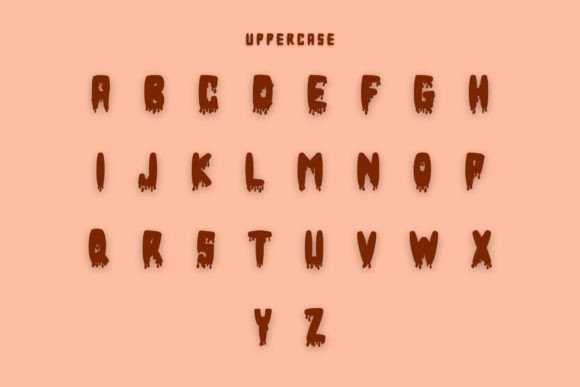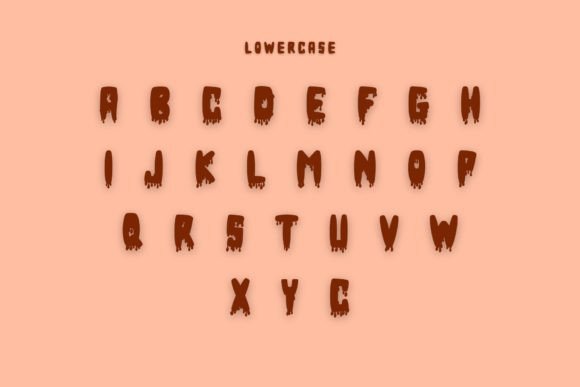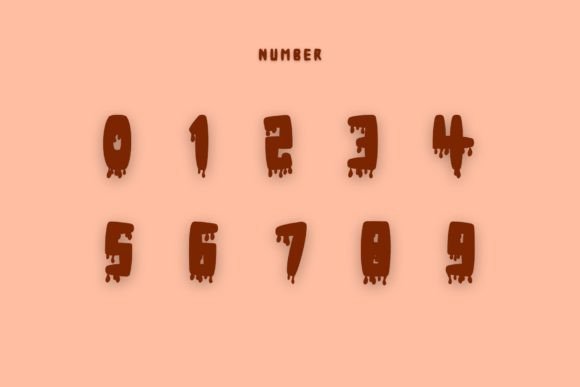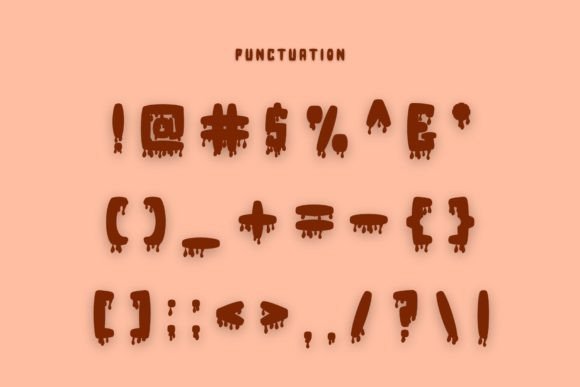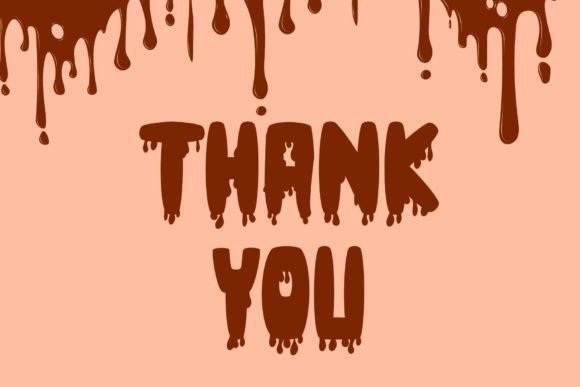
Dripper Font: The Ultimate Choice for Spooky and Fun Designs
Are you looking for a font that can add a touch of playfulness and authenticity to your designs? Look no further than the Dripper Font! This scary and fun decorative font is perfect for all your favorite Halloween projects, and its versatility makes it suitable for a wide range of applications, from blog posts and logos to invitations and decorations.
What Makes Dripper Font So Special?
Dripper Font is a unique and eye-catching font that embodies the spirit of Halloween. Its drippy, irregular design gives it a spooky and fun feel that’s sure to grab attention. Whether you’re creating a Halloween-themed blog post, a logo for a haunted house, or an invitation to a costume party, Dripper Font is the perfect choice.
One of the best things about Dripper Font is its versatility. It’s not just limited to Halloween designs; it can be used for a wide range of projects, including:
- Blog posts: Add a touch of personality to your blog posts with Dripper Font. It’s perfect for headings, titles, and even body text.
- Logos and branding: Create a memorable logo for your business or brand with Dripper Font. Its unique design will help you stand out from the crowd.
- Ads: Make your ads more eye-catching with Dripper Font. It’s perfect for creating attention-grabbing headlines and titles.
- Invitations: Create spooky and fun invitations for Halloween parties, costume contests, or other events.
- Greeting cards: Add a personal touch to your greeting cards with Dripper Font. It’s perfect for creating unique and memorable cards.
- Planners and photo albums: Use Dripper Font to add a touch of personality to your planners and photo albums.
- Decorations: Create spooky and fun decorations for your home or office with Dripper Font.
Why Designers and Crafters Love Dripper Font
Dripper Font has become a favorite among designers and crafters due to its unique and versatile design. Here are just a few reasons why:
- Customizable: You can customize Dripper Font to fit your design needs. Experiment with different colors, sizes, and styles to create a unique look.
- High-quality design: Dripper Font is designed with high-quality graphics, ensuring that it looks great in any design.
- Perfect for DIY projects: Dripper Font is perfect for DIY projects, such as crafting, scrapbooking, and paper crafting.
Tips for Using Dripper Font
Here are a few tips for using Dripper Font in your designs:
- Experiment with different colors: Dripper Font looks great in a variety of colors, from bright and bold to dark and spooky.
- Mix and match: Combine Dripper Font with other fonts and design elements to create a unique look.
- Keep it simple: Don’t be afraid to keep your design simple and clean. Dripper Font can stand alone or be paired with other design elements.
- Have fun: The most important thing is to have fun with Dripper Font! Experiment with different designs and ideas to create something truly unique.
Dripper Font is a scary and fun decorative font that’s perfect for all your favorite Halloween projects and beyond. Its versatility, ease of use, and high-quality design make it a favorite among designers and crafters. Whether you’re creating a blog post, logo, invitation, or decoration, Dripper Font is the perfect choice. So why wait? Add Dripper Font to your designs today and enjoy the results!